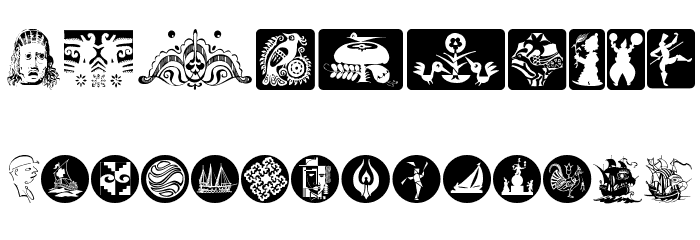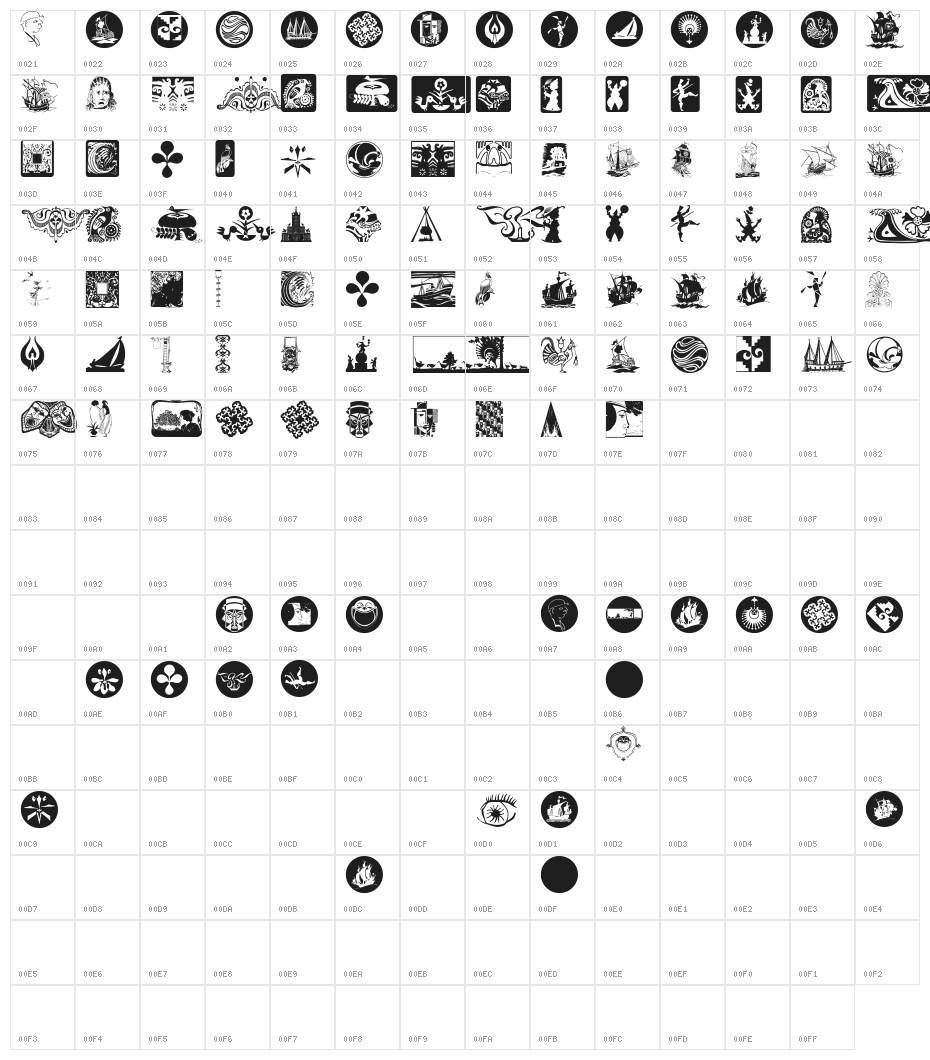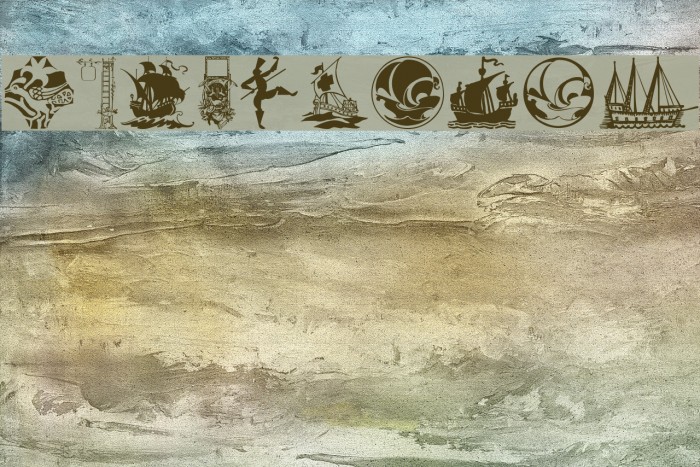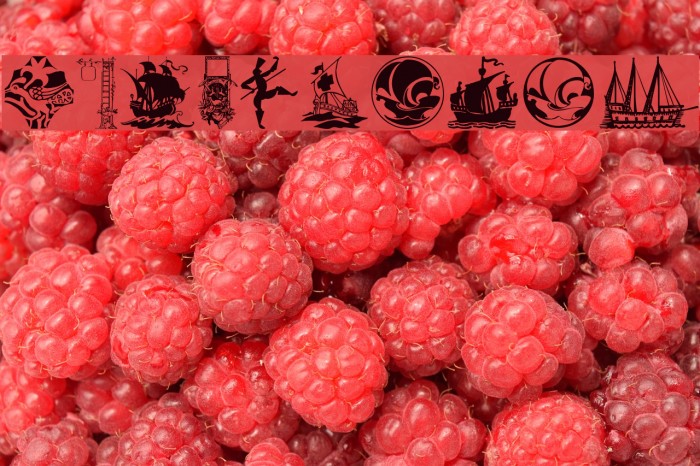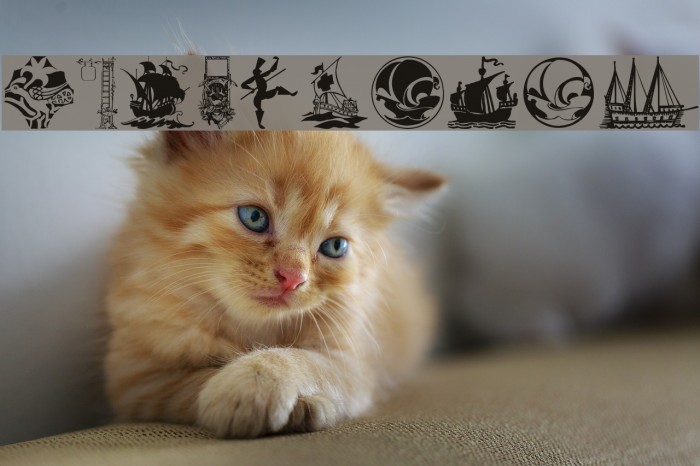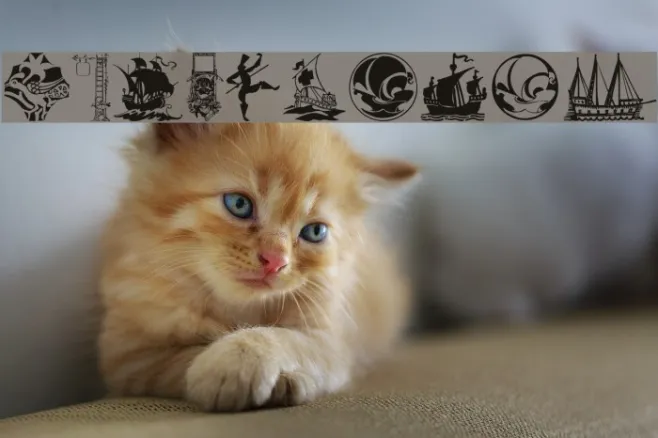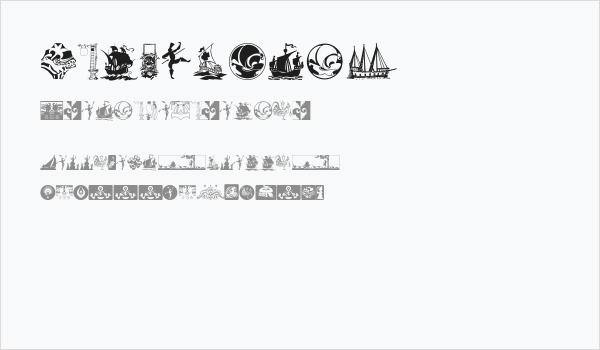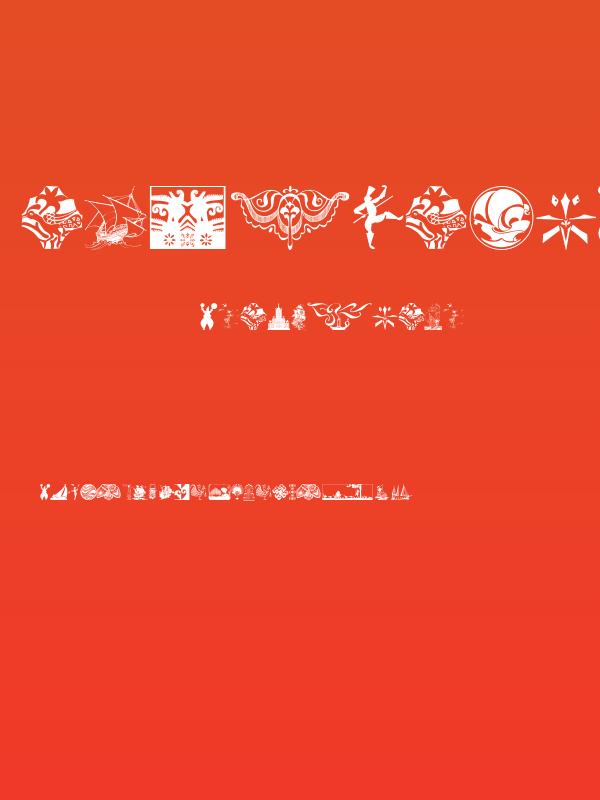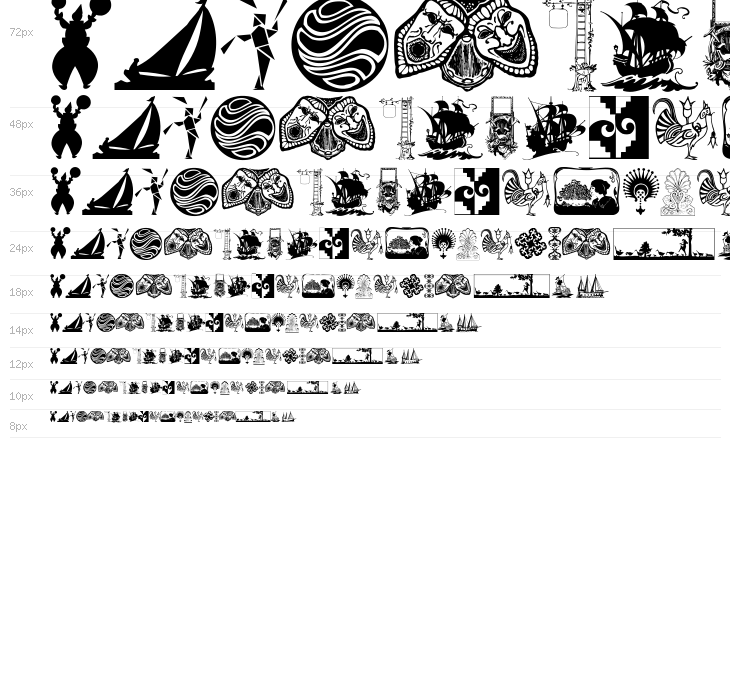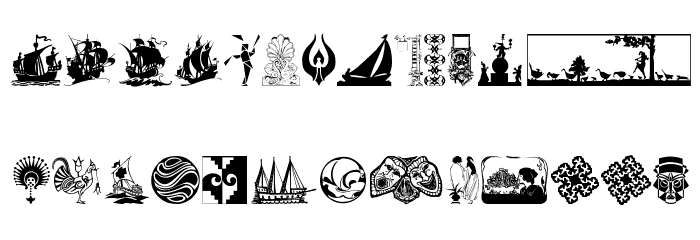
PickUpBats Font
PickUpBats Description
A decorative dingbat collection featuring a variety of intricate, high-contrast black and white illustrations, including ships, tribal motifs, abstract shapes, people, animals, and ornamental patterns. Each glyph is a unique pictorial symbol rather than a traditional alphanumeric character.
| Overall Style | Decorative, Ornamental, Eclectic |
| Use Case | Icons, Decorative elements, Themed graphics, Borders |
| Proposed Projects | Invitations, themed posters, scrapbooking, branding for cultural or nautical events, decorative borders, and visual storytelling. |